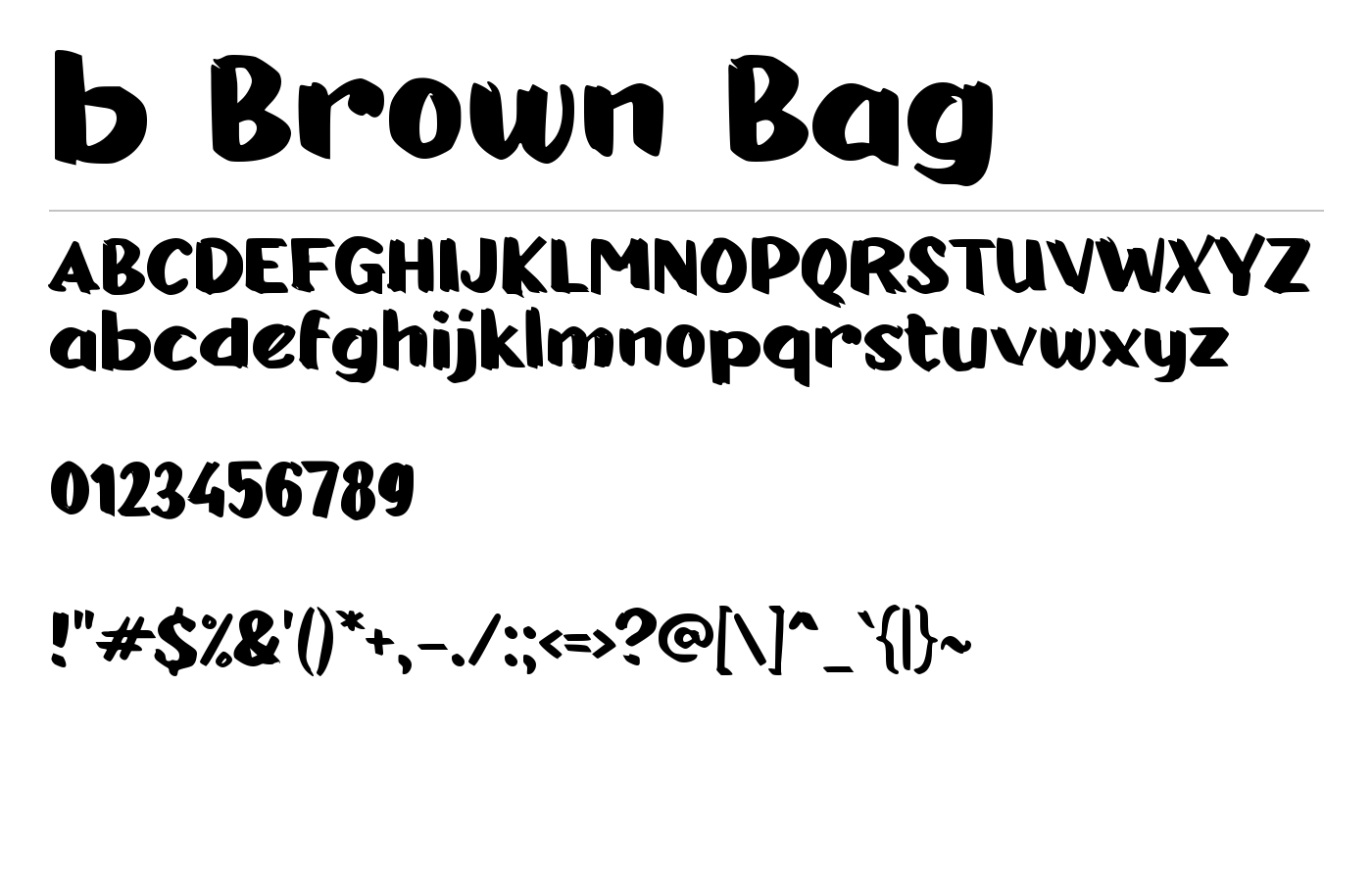
Brown Bag is a bold, playful sans serif font with a hand-drawn, slightly rough texture that gives it a warm and informal feel. Its chunky letterforms and strong presence make it ideal for creative projects, packaging, and headlines where a fun, approachable personality is desired. This font works well for brands looking to convey friendliness and originality with a touch of casual charm.
b Brown Bag Font
About b Brown Bag Font